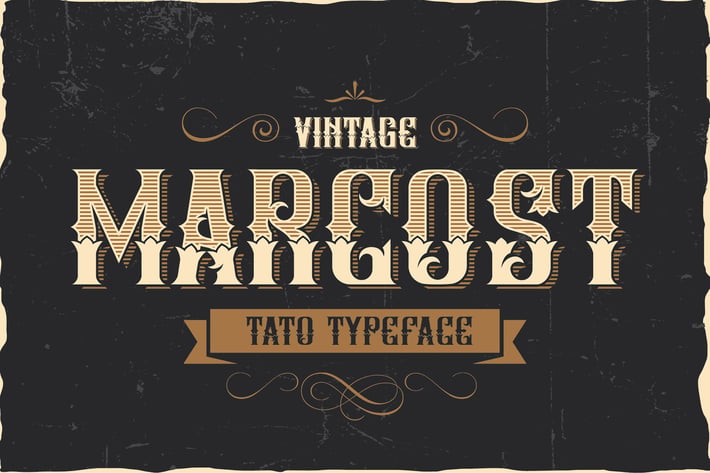
Marcost - Tato Typeface
Marcost Tato Typeface – Bold and Stylish Sans-Serif for Modern Designs
The Marcost Tato Typeface is a bold and stylish sans-serif font designed to make your text stand out. Its strong lines and clean shapes give a fresh, modern look. Therefore, it works great for headlines, logos, posters, and branding projects that need a confident voice.
Because the font has wide letter spacing and sharp edges, it captures attention quickly. This makes it easy to read, even from a distance. Moreover, the font’s simple structure helps keep designs neat and balanced. As a result, it fits well with both minimalist and bold creative styles.
In addition, the Marcost Tato font comes with multiple weights and styles. This variety allows you to mix and match for a consistent yet dynamic look. Whether you want light or bold text, this typeface covers many design needs. Furthermore, its clean design pairs well with many other fonts, especially simple sans-serifs and thin scripts.
The font’s straightforward and modern design makes it suitable for digital and print use. For instance, it works well on websites, social media graphics, business cards, and product packaging. Because of its versatile style, you can rely on it for many different projects.
To sum up, the Marcost Tato Typeface offers:
- Bold, clear letterforms for strong impact
- Wide spacing that improves readability
- Multiple weights for design flexibility
- A modern and clean sans-serif style
- Versatility for print and digital projects
Overall, this typeface helps designers create confident and stylish presentations with ease. It adds personality while keeping text clean and readable.